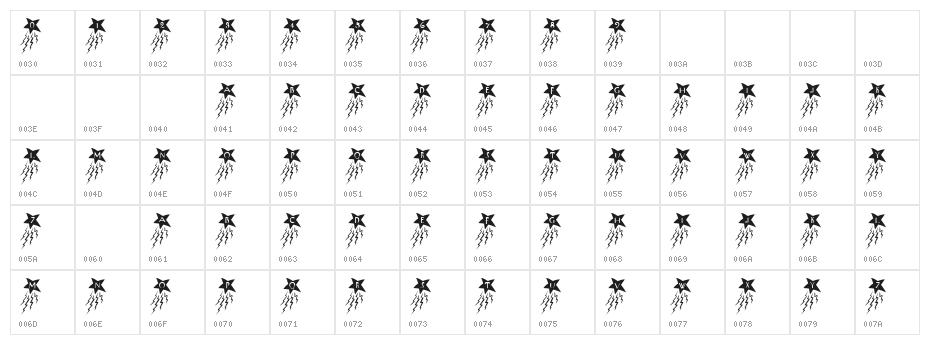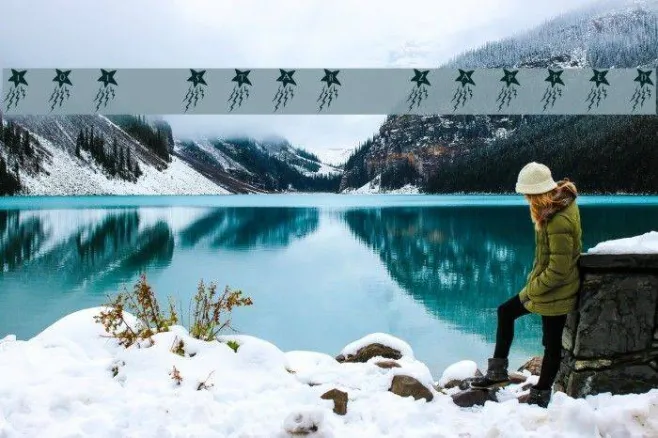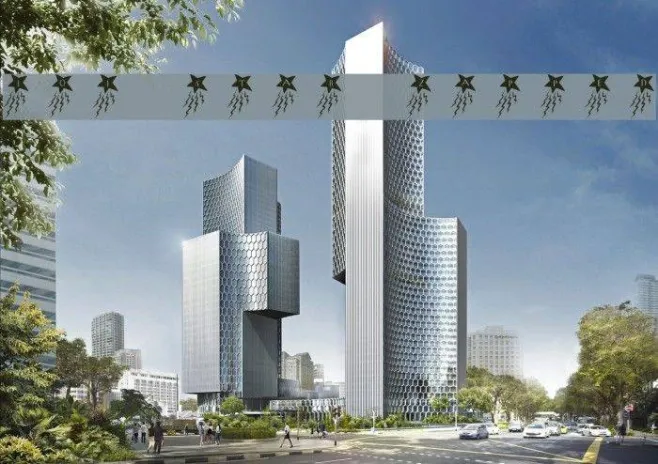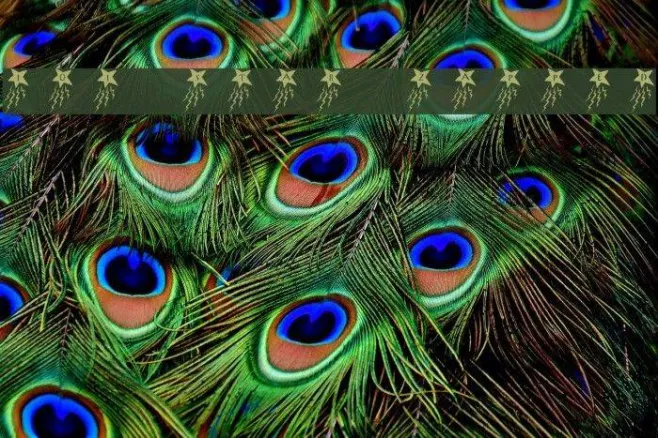
101! Star ZappeD Font
101! Star ZappeD Description
This font features a bold, decorative style with each character encapsulated within a star shape, accompanied by a lightning bolt motif beneath. The design is highly stylized, making it stand out with its unique combination of celestial and electric elements. The characters are evenly spaced within the stars, providing a consistent visual rhythm. The font's playful and energetic appearance makes it suitable for creative and dynamic projects. Its distinctive look is ideal for capturing attention and conveying a sense of excitement and power.
| Proposed Projects | Ideal for music album covers, event posters, or branding for energetic and youthful brands. |